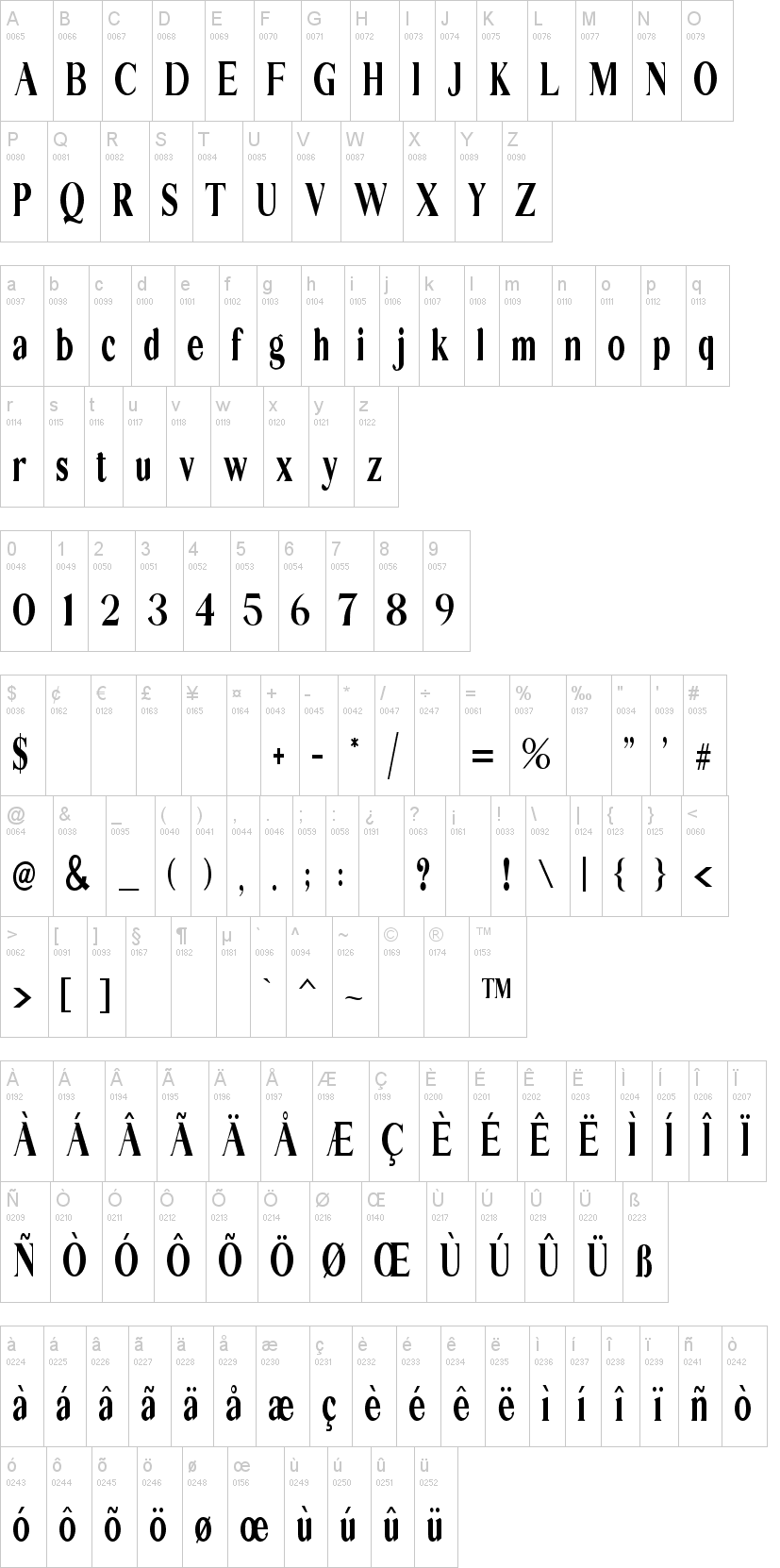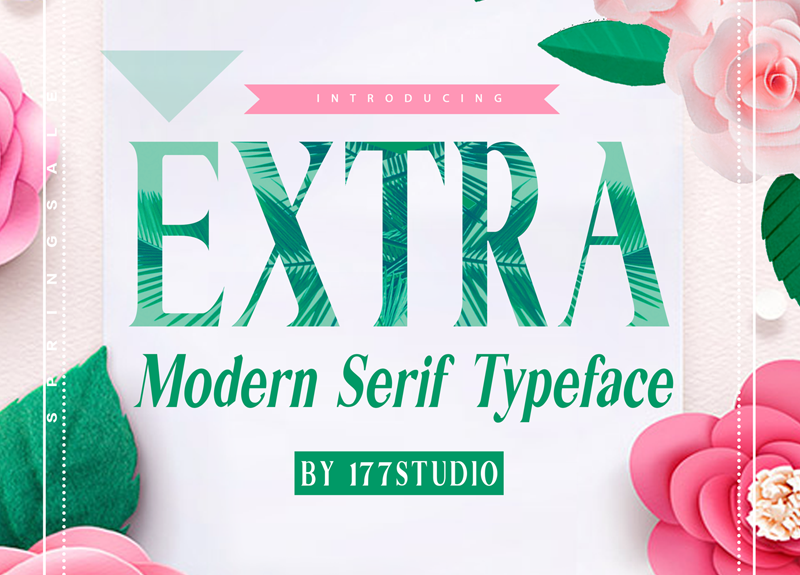
Extra Serif
EXTRASerif-Italic.ttfNote of the authorEXTRA Serif Font is a modern serif font whose design refers us to the style of transitional serifs.
A little bit retro and a bit modern, EXTRA SERIF FONT is great for logos, editorial or web design. The unique sharp serifs mixed with thin strokes give off a bold mid century architectural vibe.